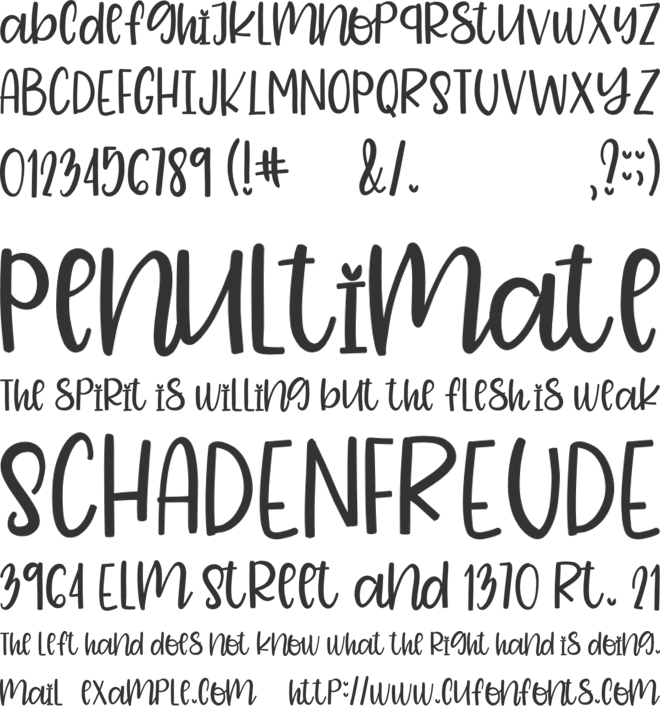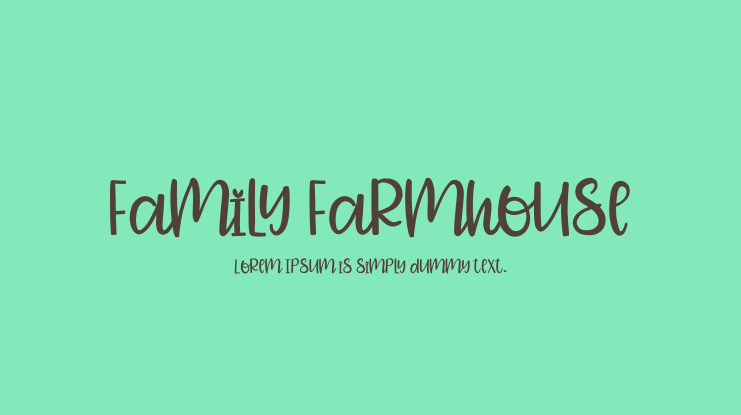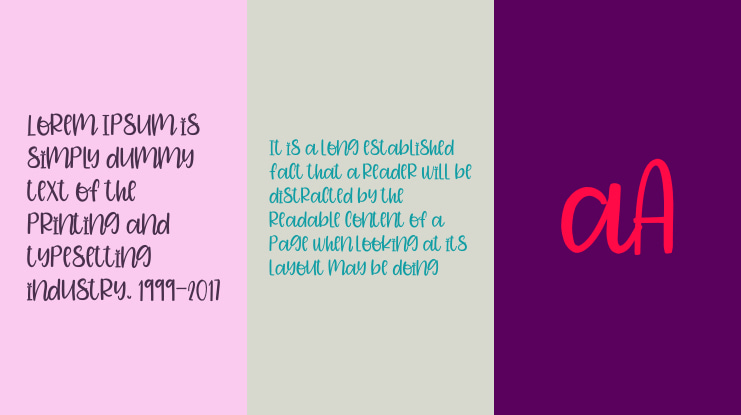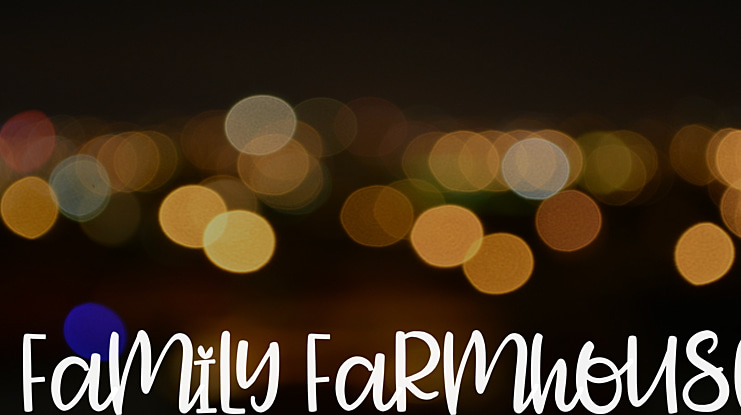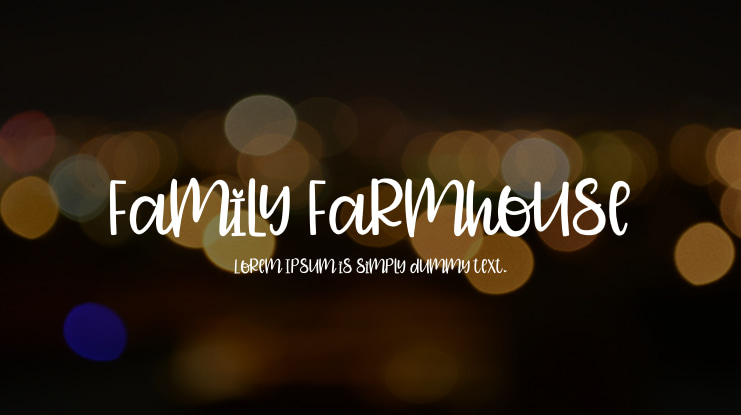
Family Farmhouse Font
Family Farmhouse is a cool and playful handwritten font. It is the best choice for creating eye-catching logos, branding, and quotes. Every letter has a unique and beautiful touch, which will make your designs come alive.